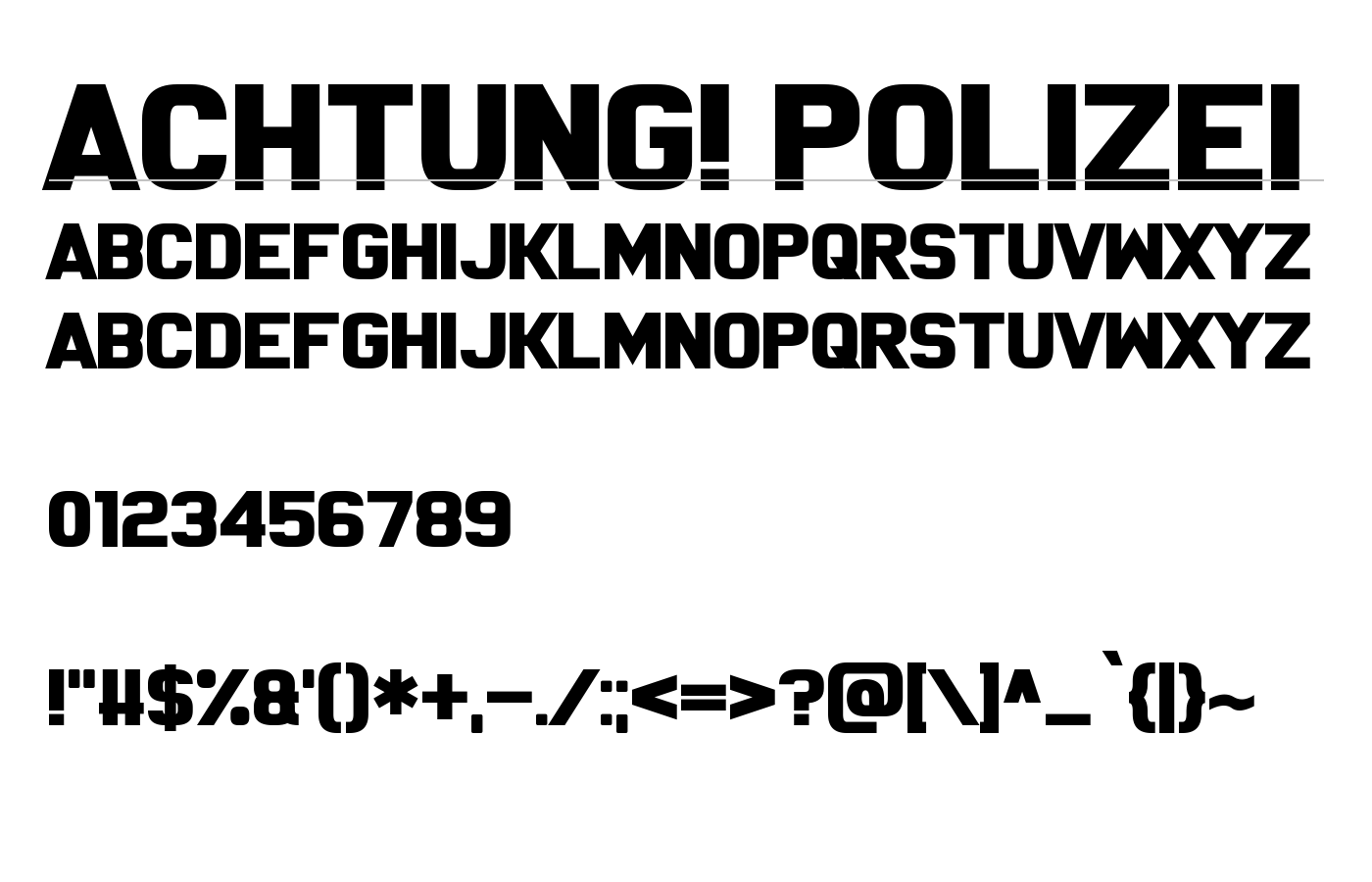
Achtung! Polizei is a bold, condensed sans-serif font with a strong industrial and utilitarian feel, characterized by its sharp, blocky letterforms and high x-height. It features uniform stroke weight with minimal contrast and a compact spacing, making it impactful and highly legible in all caps. This font works well for attention-grabbing headlines, signage, and branding where a sense of authority and strength is desired.
Achtung! Polizei Font
About Achtung! Polizei Font